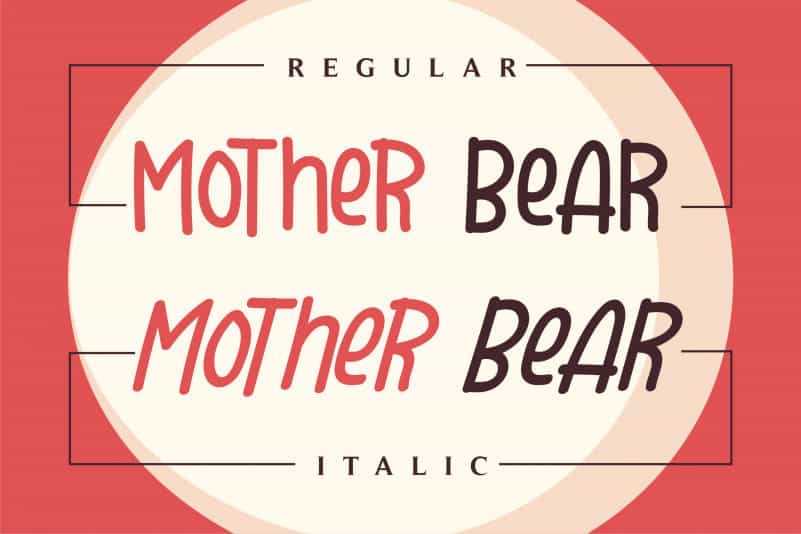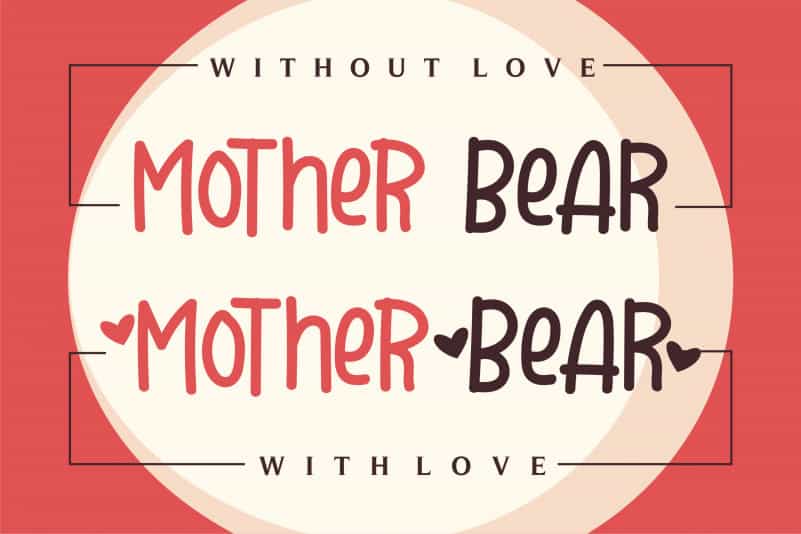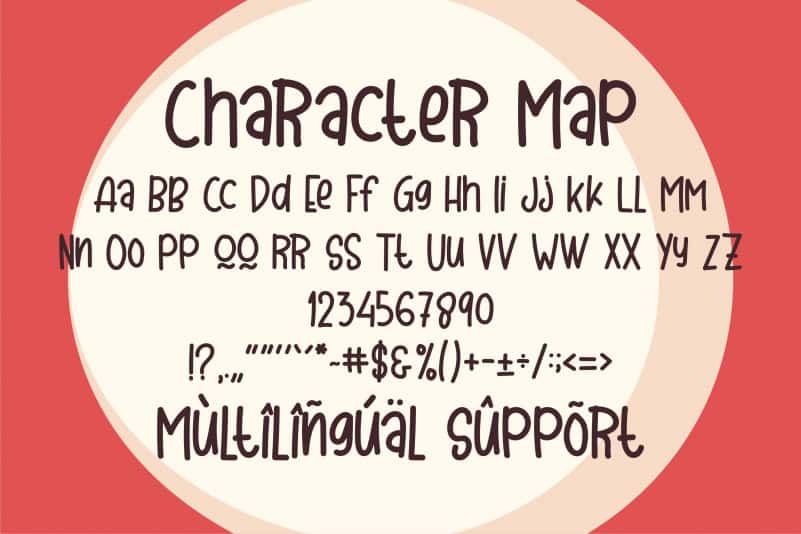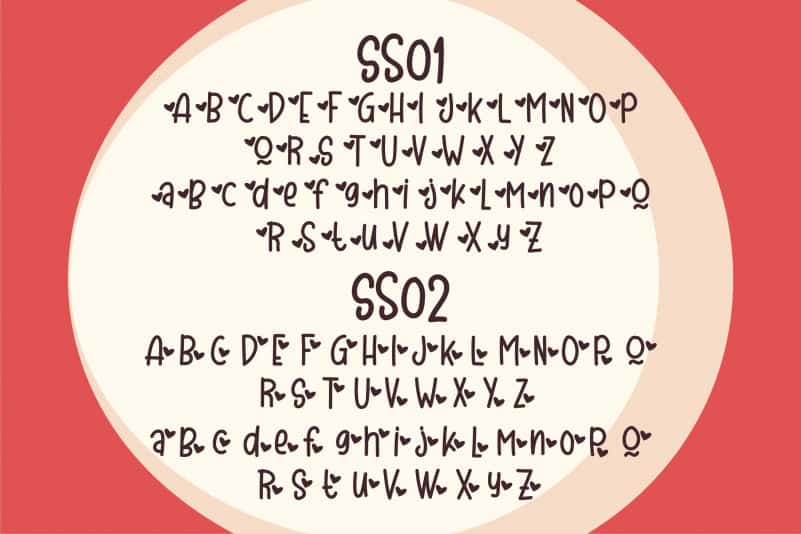
Mother Bear Display Font
Mother Bear Display Font is a quirky handwritten font with a friendly style. Use this gorgeous and unique font to bring any DIY project to life!